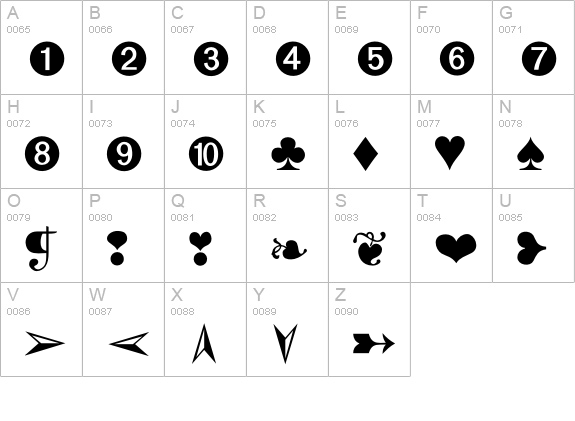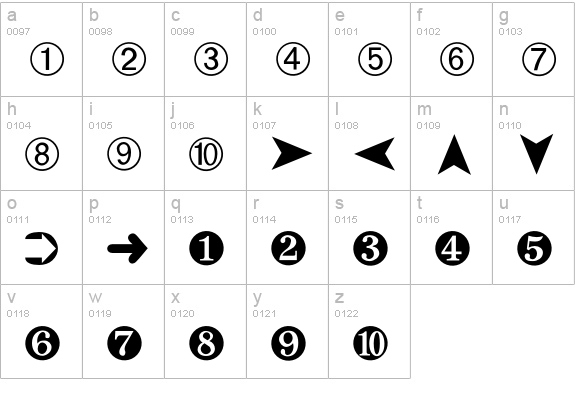
Moredings Font Details
Introducing Moredings font, a stunning display typeface that combines elegance with a touch of playfulness. This versatile font is perfect for various design projects, from branding to packaging to social media graphics. With its unique and eye-catching design, Moredings font is sure to make your text stand out and leave a lasting impression. But the best part? Moredings font is completely free for personal and commercial use! Yes, you read that right - this exquisite font can be downloaded at no cost from FontsMarket.com. So why wait? Add a touch of sophistication and creativity to your designs with Moredings font today!